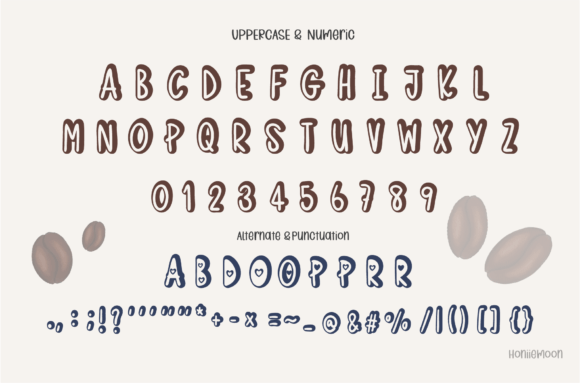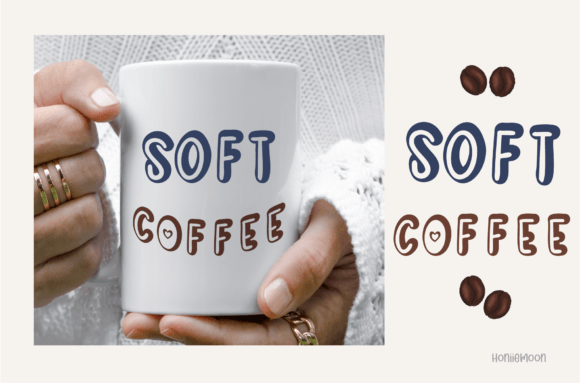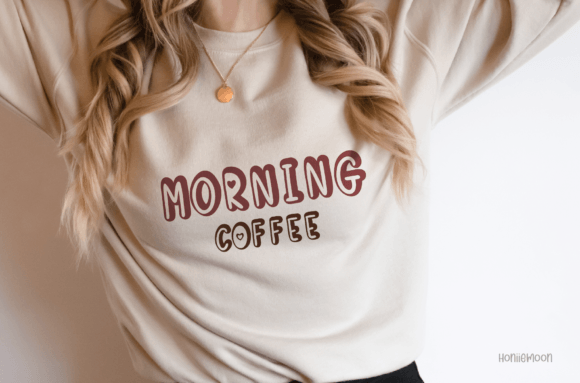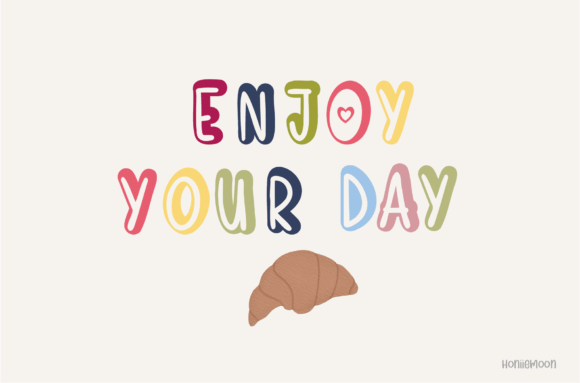
The Ultimate Guide to Coffee House Font: Elevate Your Designs with this Fun and Playful Typeface
An Honest Review of Coffee House Font
Coffee House Font is a cool and fun all-caps display font that’s perfect for designers, crafters, and creative hobbyists looking to add a dash of personality to their projects. Here’s what I love about it:
- ✨ Cute and jolly vibe: Coffee House Font has a playful, carefree feel that’s perfect for designs that need a bit of whimsy.
- ✅ Highly versatile: This font can be used for a wide range of projects, from branding and advertising to packaging and social media graphics.
- 💥 Attention-grabbing: The bold, colorful design of Coffee House Font makes it perfect for headlines, titles, and other display text.
Of course, no font is perfect, and Coffee House Font has a few small quirks:
- 🤔 Limited use in body text: While Coffee House Font is amazing for display text, it’s not the best choice for longer blocks of body text.
- ⚠️ Some glyphs may not be suitable for all languages: As with any font, it’s essential to test Coffee House Font with your specific language and character set.
The Story Behind Coffee House Font
Coffee House Font was designed with one goal in mind: to create a fun, modern typeface that captures the spirit of trendy coffee shops and cafes. The designer, inspired by the vibrant colors and playful atmosphere of these spaces, set out to create a font that’s both cute and jolly. The result is a font that’s perfect for designs that need a bit of personality and whimsy.
Q: Is Coffee House Font suitable for body text?
A: While Coffee House Font is amazing for display text, it’s not the best choice for longer blocks of body text. Its bold, playful design can be overwhelming for readers.
Q: Does Coffee House Font support OpenType features?
A: Yes, Coffee House Font supports OpenType features like ligatures and stylistic alternates, giving you more creative control over your designs.